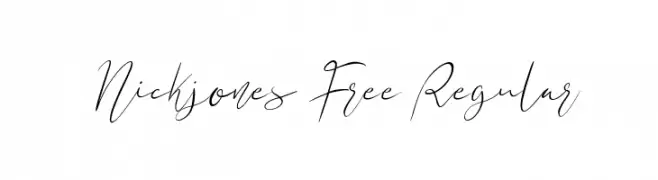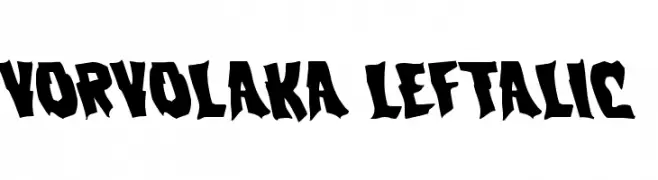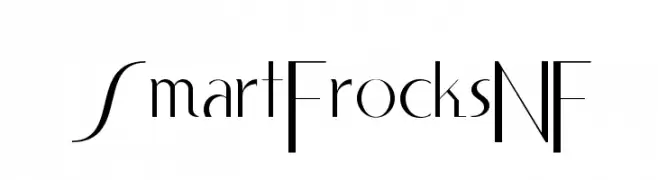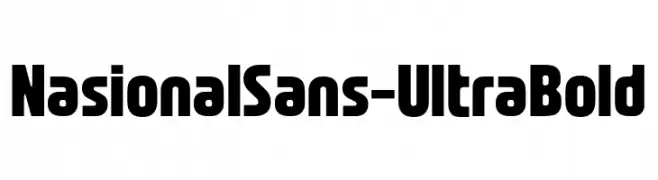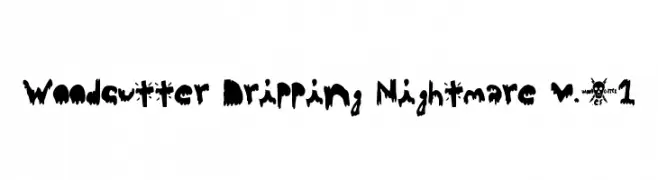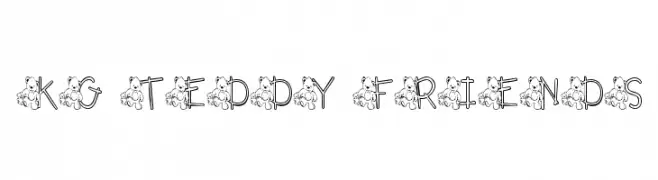
A cursive, handwritten font with elegant, flowing strokes.
A bold, left-leaning font with sharp, angular edges and a dynamic, graffiti-like style.
A bold, edgy font with sharp, angular lines and a rebellious aesthetic.
An elegant and artistic font with flowing lines and decorative flourishes.
A bold, modern sans-serif font with strong, thick strokes.
A dripping, horror-themed font with a bold, eerie style.
A playful font with teddy bear illustrations integrated into each character.